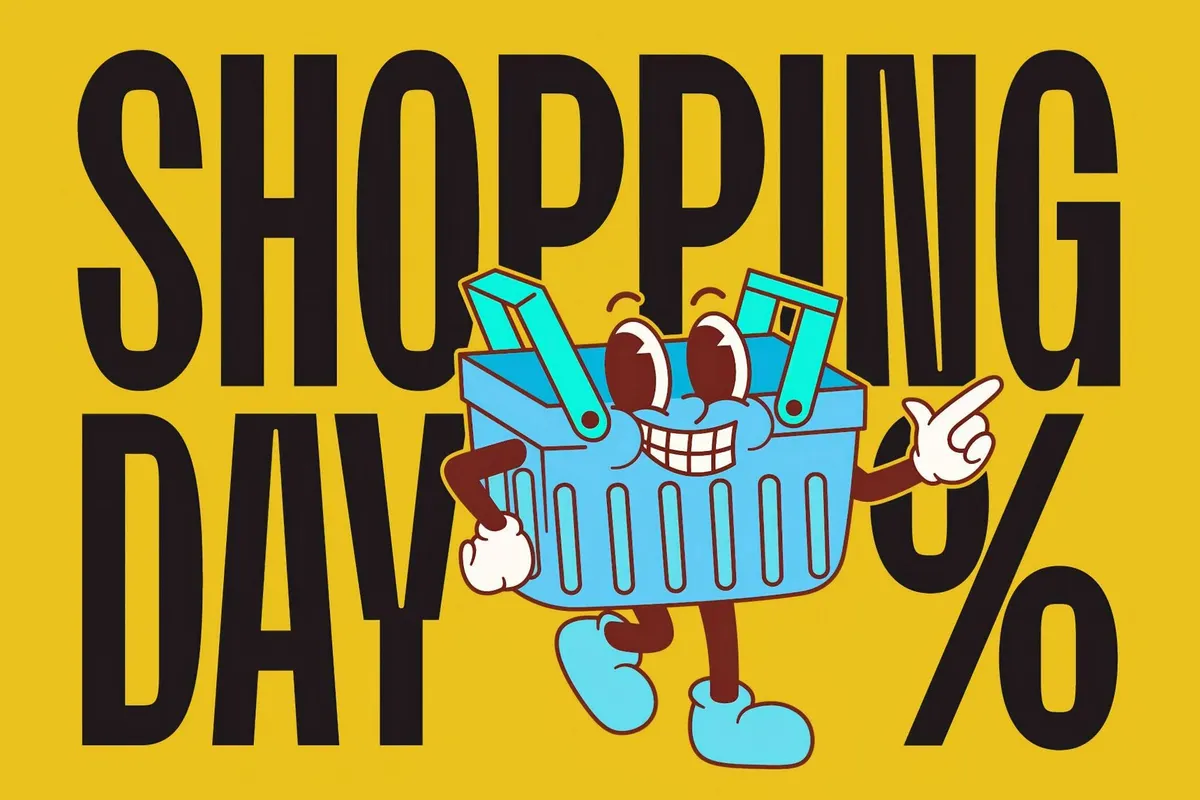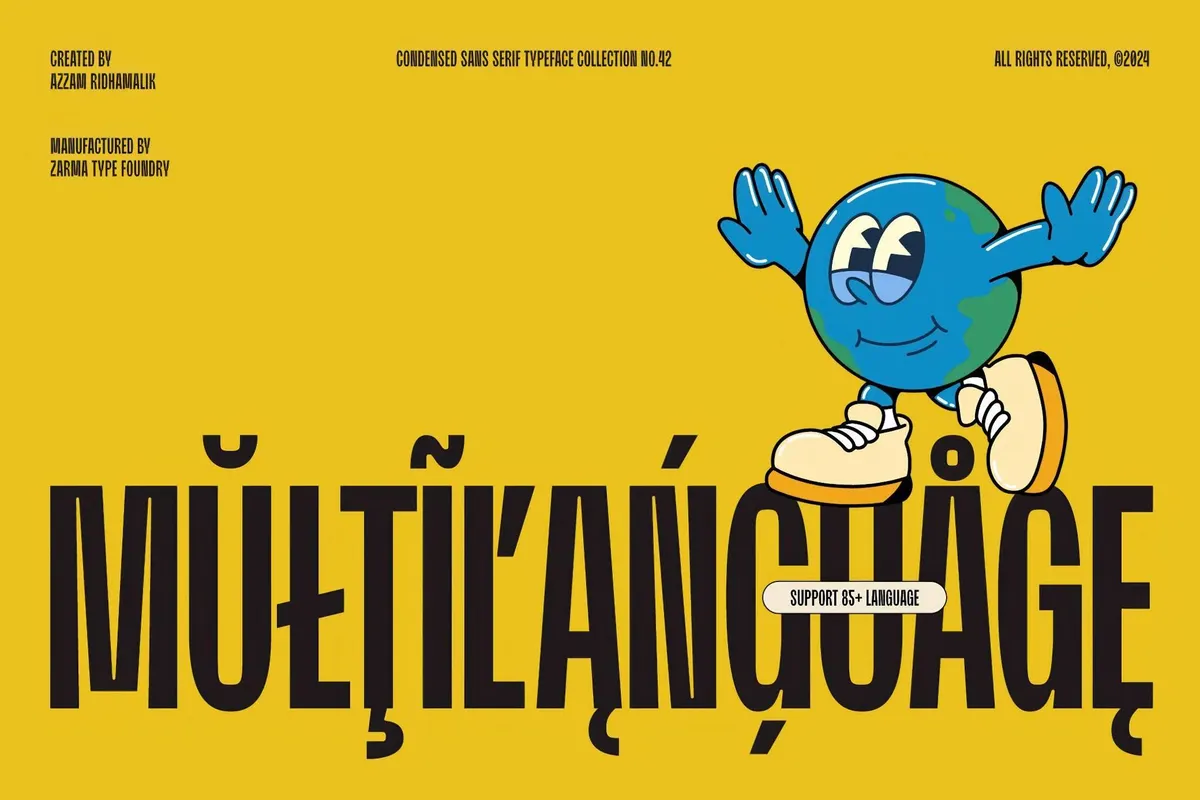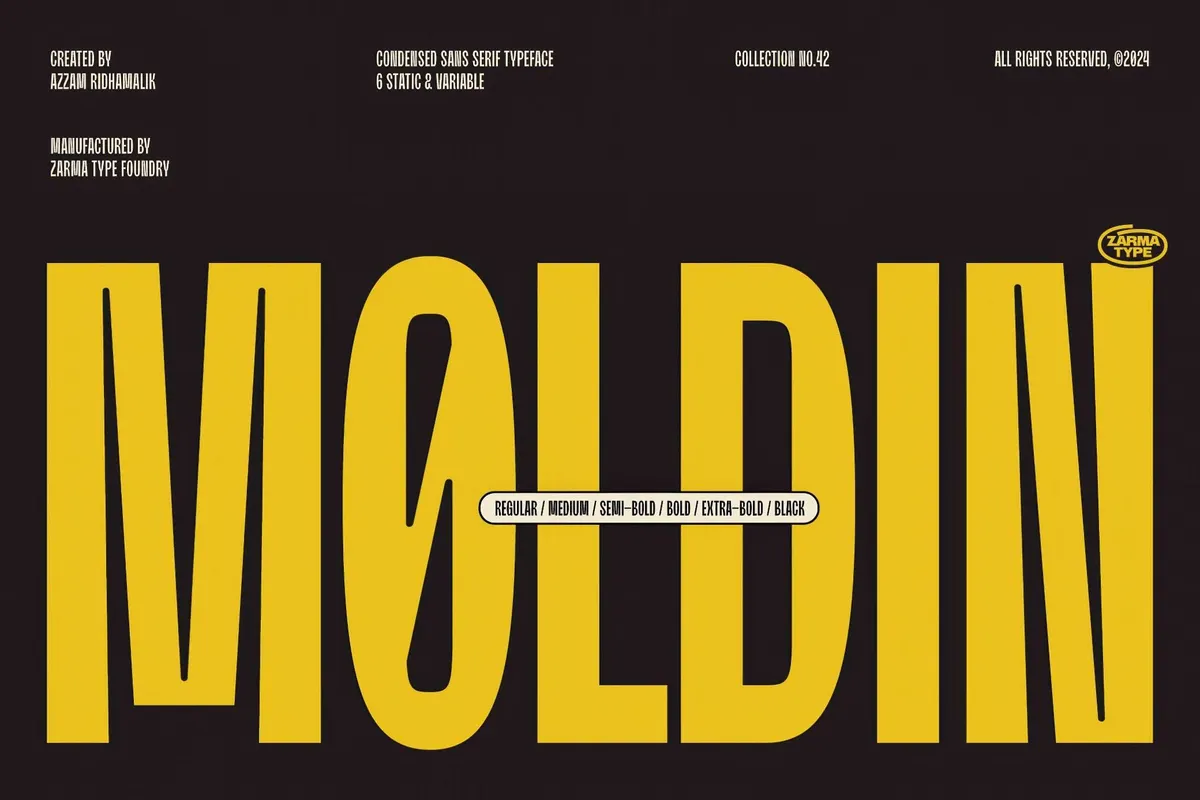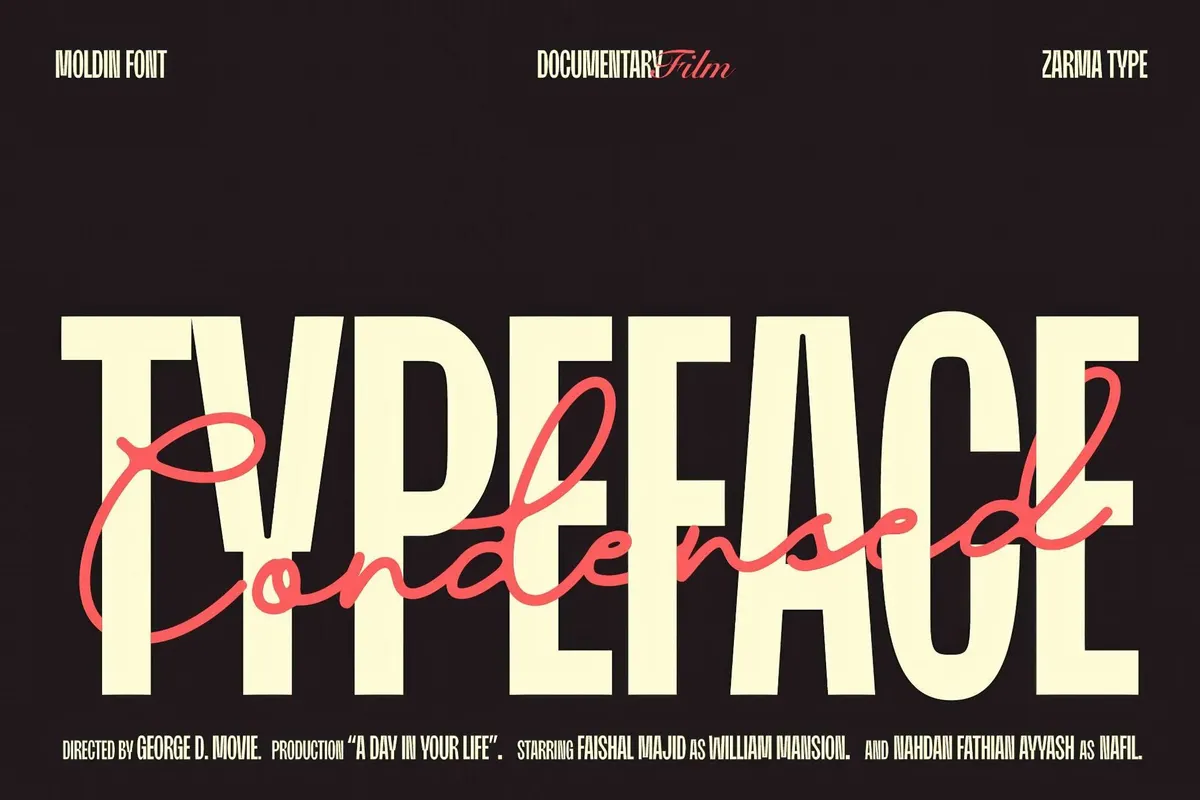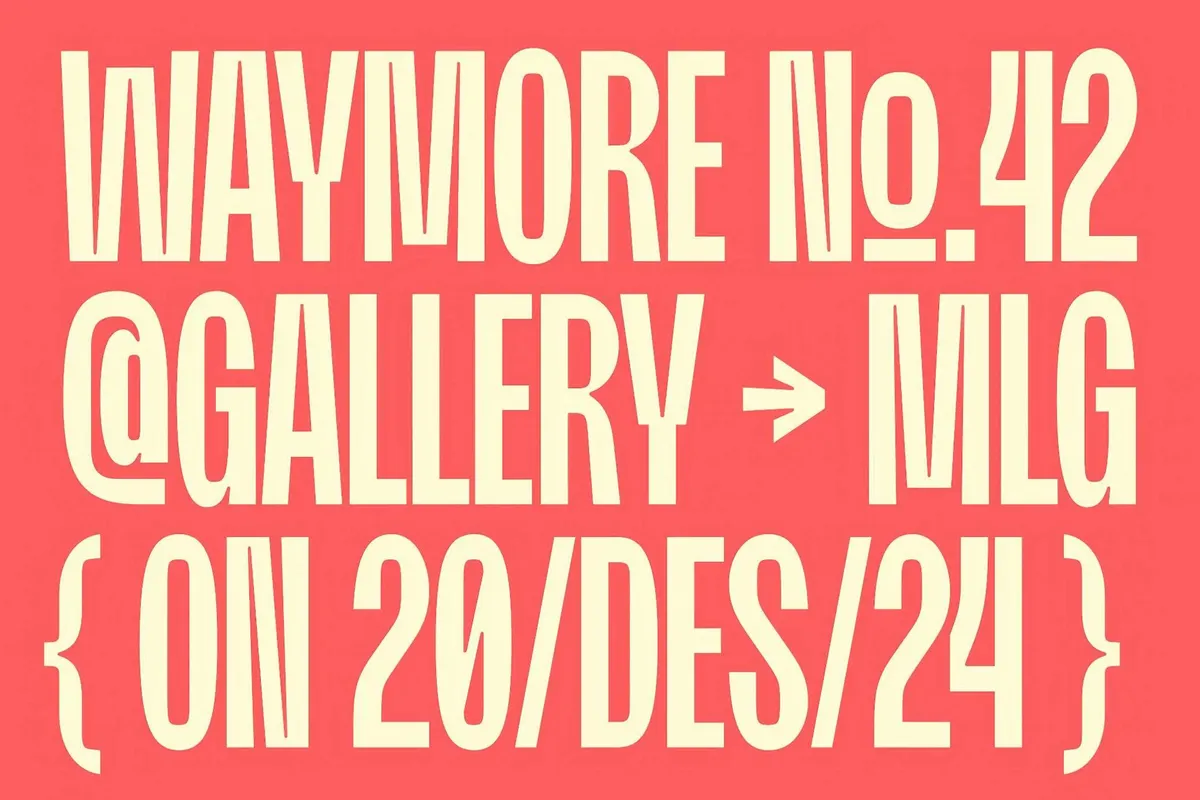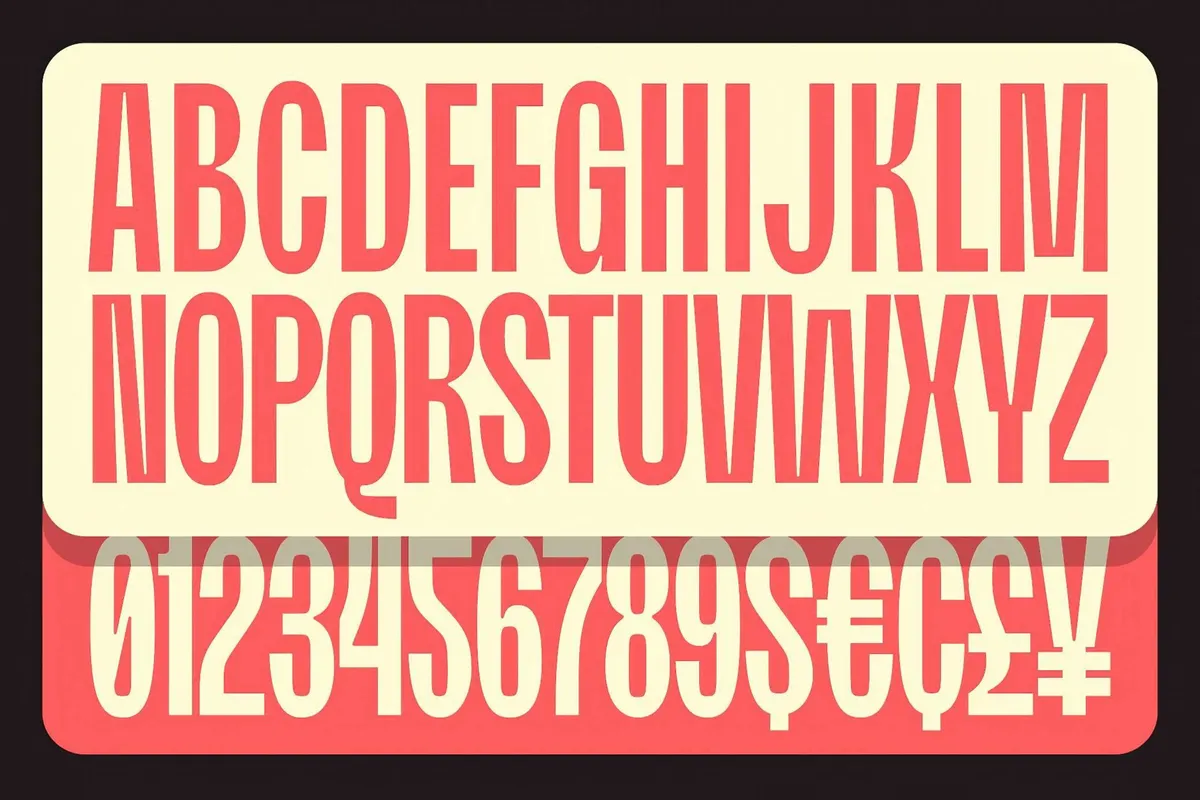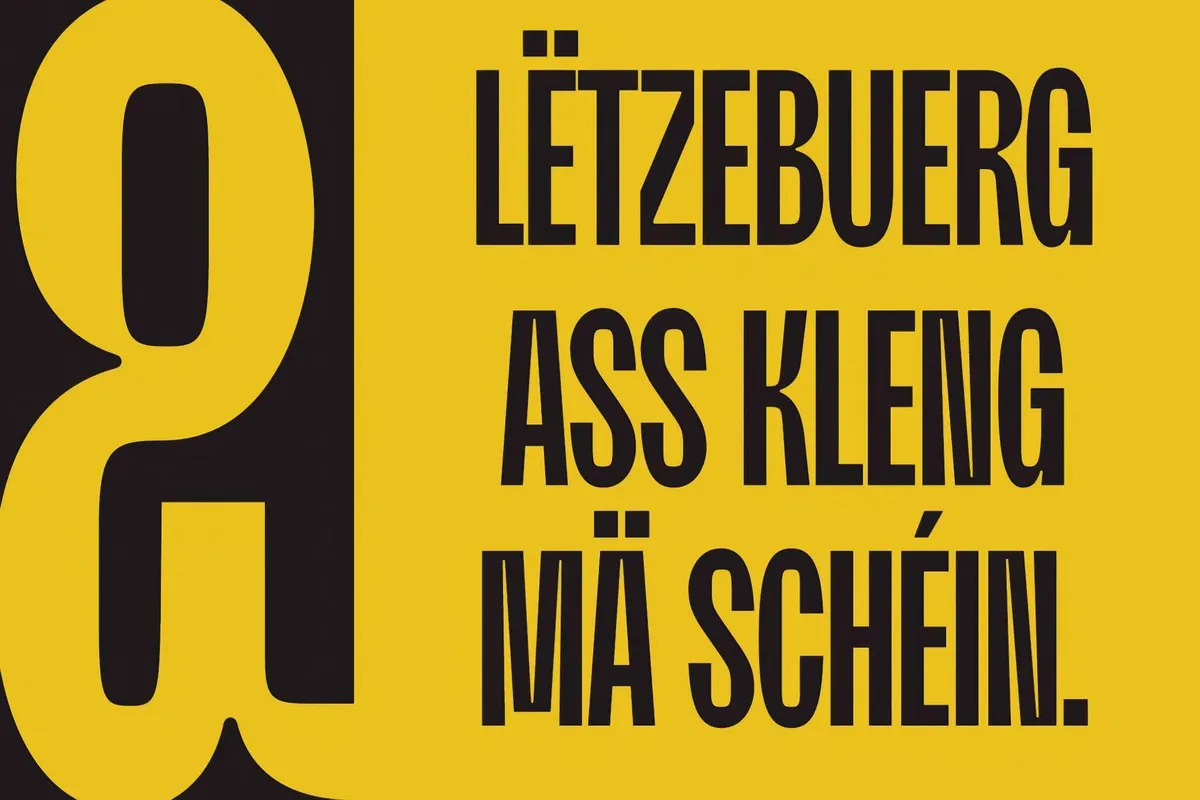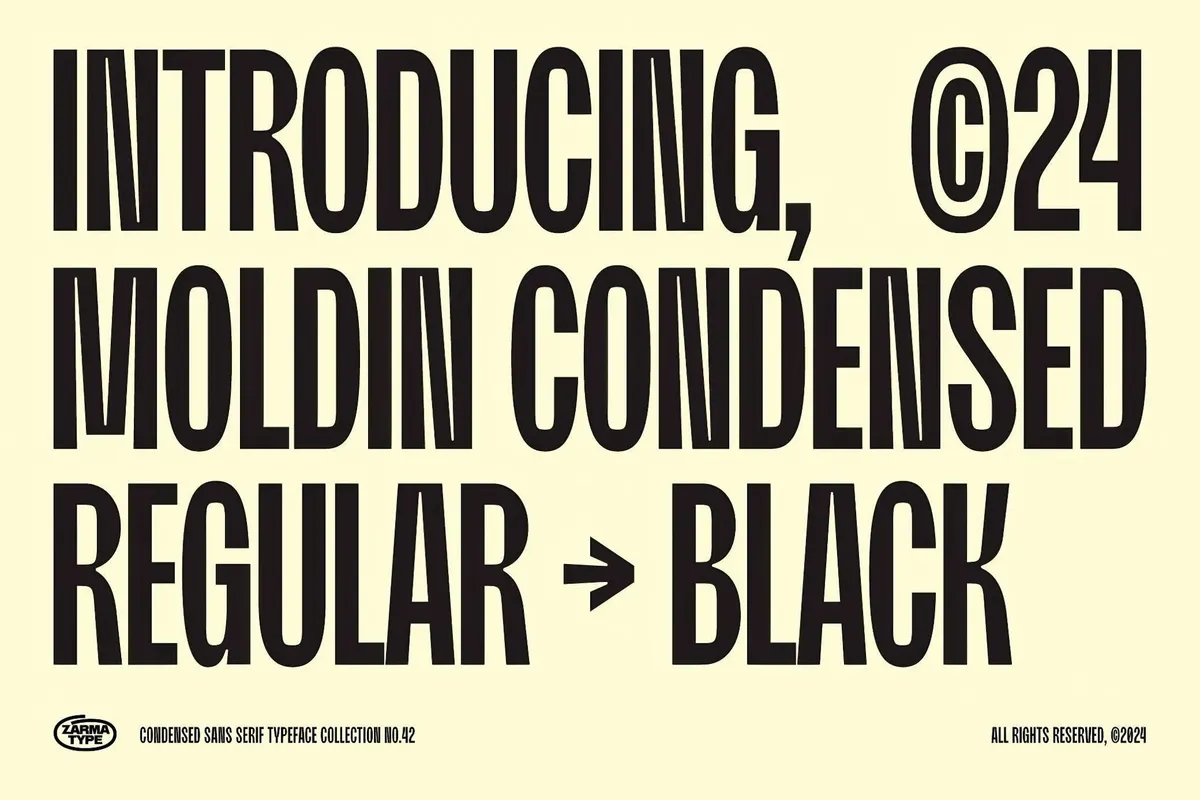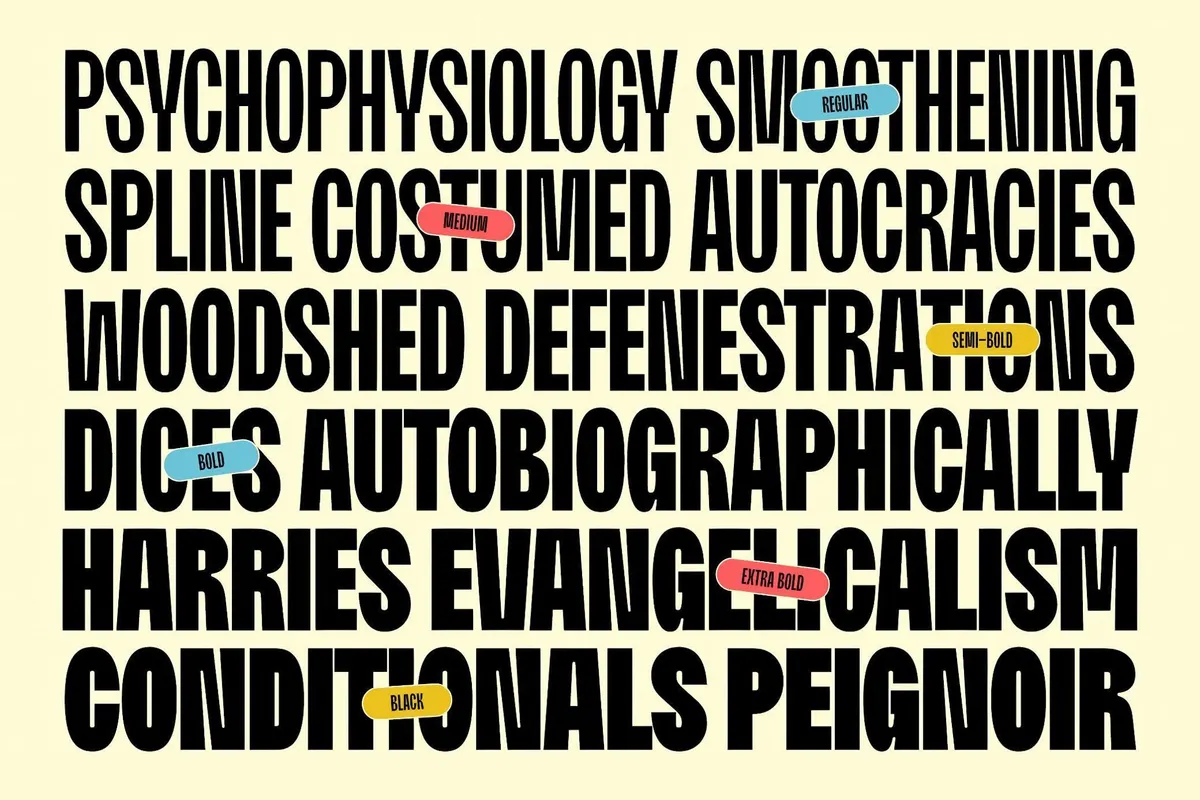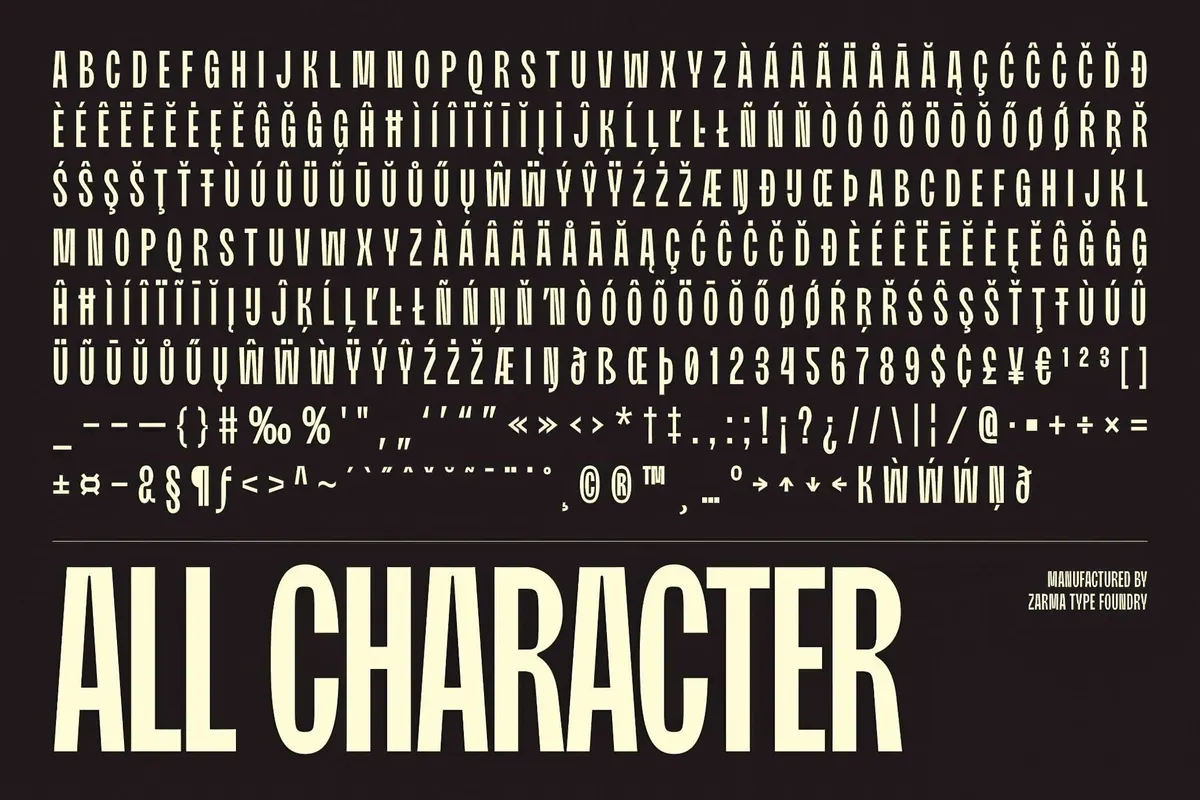
Moldin — Condensed Sans Serif Font
Moldin is a powerhouse of a condensed sans serif font family, built to command attention in display and headline applications. With its industrial-inspired geometry and contemporary aesthetics, it delivers bold, high-impact typography across branding, posters, editorial layouts, and digital media.
Available in both static and variable formats, Moldin offers six carefully crafted weights — from Regular to Black. Each weight features optimized kerning and spacing for superior legibility, even in compact layouts. The extensive character set includes multilingual support, extended Latin, and specialized OpenType features, ensuring seamless integration into global design projects.